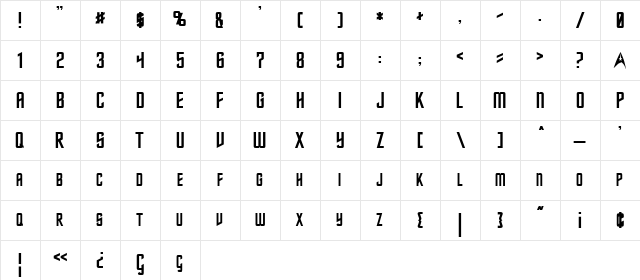
Starfleet Normal
Design Context for Starfleet Typeface
Starfleet offers clean, dependable letterforms without strong stylistic allegiance, making it a practical choice for designers who need flexibility.